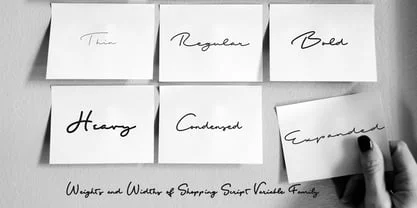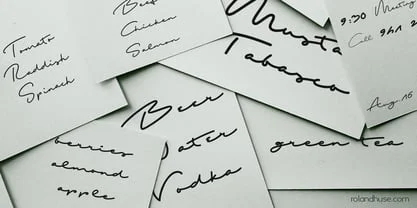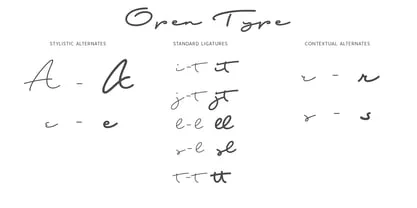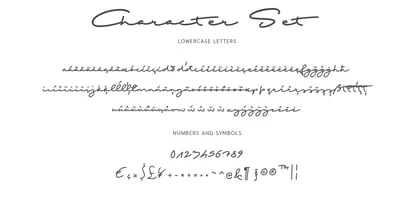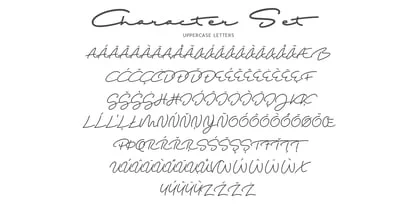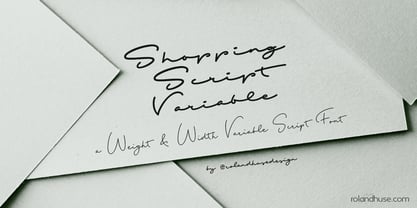
Shopping Script Font
This Shopping Script Font is perfect for retail store branding, fashion boutique signage, e-commerce website headers, shopping mall promotions, luxury brand packaging, consumer goods labeling, marketplace advertising, lifestyle product designs, commercial shopping campaigns, and trendy retail communications.
What makes this Shopping Script Font exciting is its commercial elegance that captures the sophisticated allure and consumer appeal of premium retail experiences. The font features flowing script letterforms with commercial sophistication that convey luxury shopping, brand desirability, and marketplace excellence. Its retail character and consumer-focused appeal make it ideal for brands seeking to communicate shopping luxury, commercial success, and premium retail positioning in competitive consumer markets.
The Shopping Script Font family includes regular, medium, and bold weights with commercial alternates and retail-inspired variants. This comprehensive commercial font family provides designers with sophisticated retail typographic tools to create appealing compositions while maintaining the shopping character essential for consumer brand communications and retail marketing applications.
Retail brands and e-commerce businesses consistently choose Shopping Script Font for projects requiring commercial sophistication and consumer appeal. This font's distinctive retail character perfectly captures the shopping luxury and commercial excellence that resonate with audiences who appreciate premium retail experiences and sophisticated consumer brands.
The commercial construction of Shopping Script Font showcases elegantly crafted letterforms with retail proportions that ensure exceptional consumer appeal across all shopping applications. Its sophisticated appearance and commercial elegance create memorable brand impressions while maintaining the readability necessary for effective retail communication and consumer marketing materials.
Professional designers appreciate how Shopping Script Font brings immediate commercial sophistication and retail appeal to brand communications. The font's shopping nature allows organizations to communicate consumer luxury and commercial success while maintaining the professional quality necessary for effective positioning in competitive retail and e-commerce markets.
The consumer appeal of Shopping Script Font makes it particularly effective for brands emphasizing retail luxury, shopping experiences, and commercial excellence. Its elegant character resonates strongly with audiences who appreciate premium shopping, luxury retail, and brands that represent sophisticated consumer lifestyle and marketplace leadership.
Whether developing branding for luxury retail chains or creating materials for premium e-commerce platforms, Shopping Script Font provides the commercial typographic foundation that retail brands need to communicate their shopping luxury, consumer appeal, and the sophisticated elegance that defines premium retail experiences and commercial marketplace excellence.